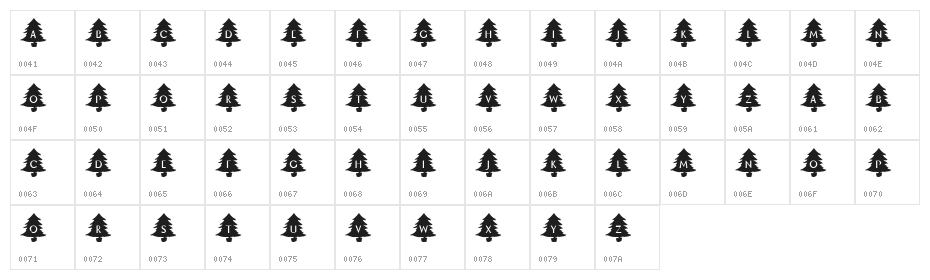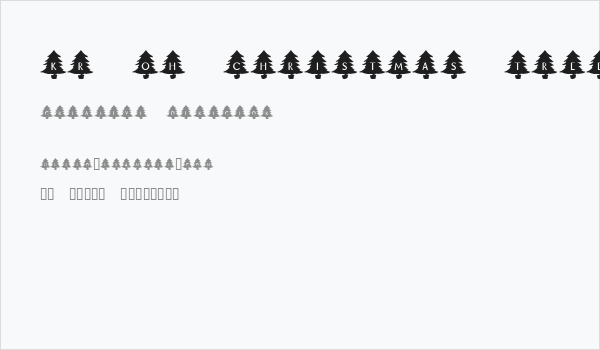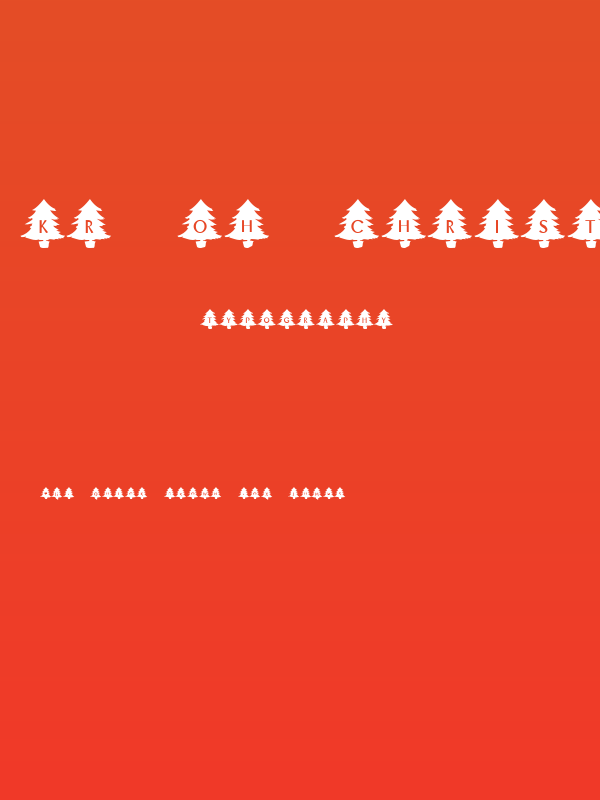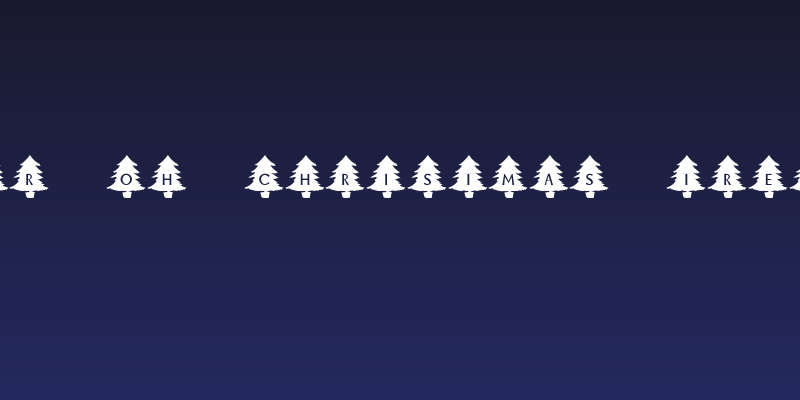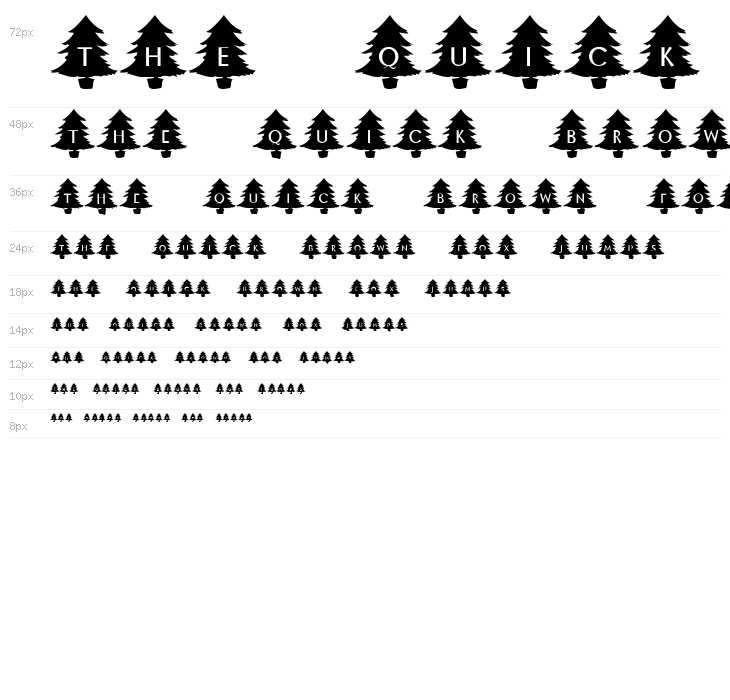
KR Oh Christmas Tree Font
KR Oh Christmas Tree Description
This decorative font features each letter embedded within a stylized Christmas tree silhouette, creating a festive and playful appearance. The uppercase letters are prominently displayed, with each character seamlessly integrated into the tree design, making it ideal for holiday-themed projects. The font's unique style captures the essence of the holiday season, combining traditional letterforms with a whimsical twist. The consistent tree shape across all characters ensures a cohesive look, while the boldness of the letters ensures readability despite the intricate design.